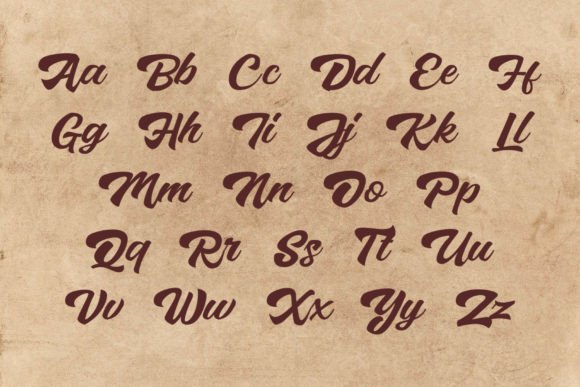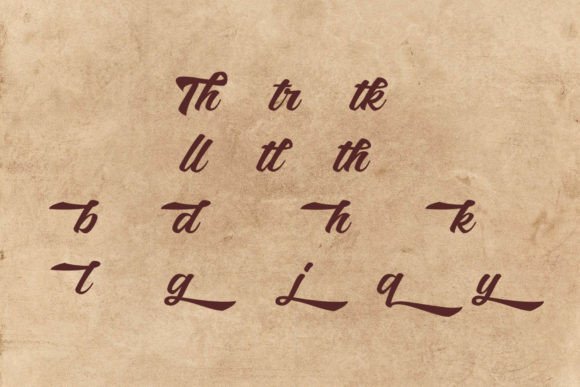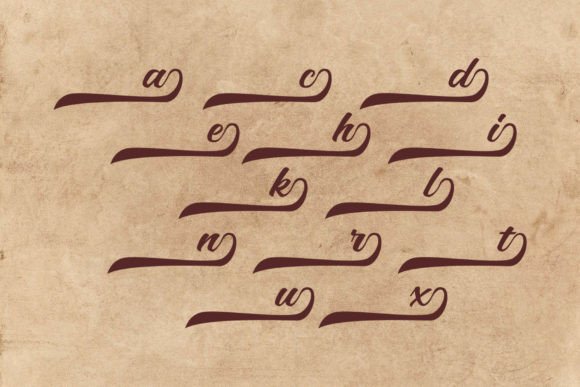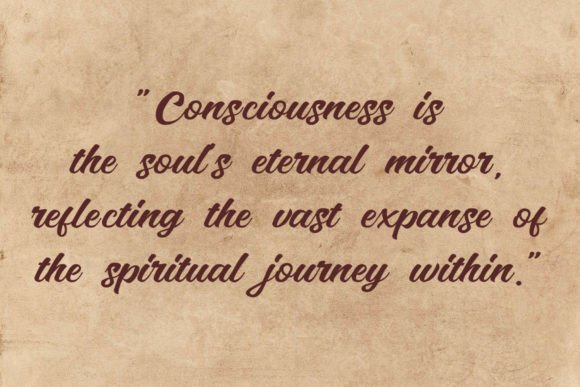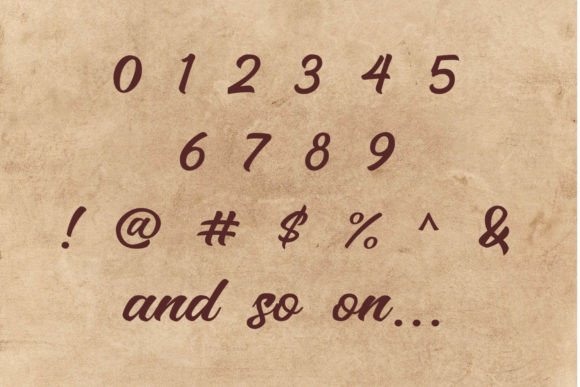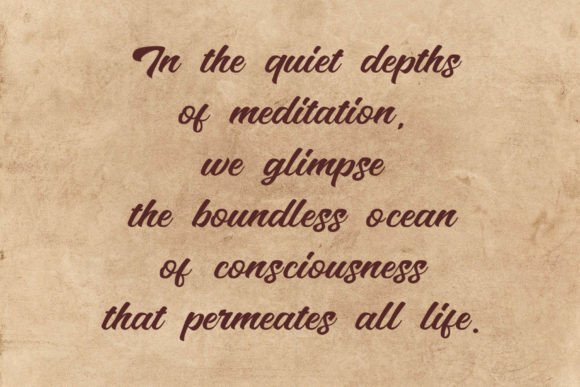
Discover the Exquisite Brushtina Brush Font – A Perfect Blend of Elegance and Creativity!
Are you tired of using the same old fonts in your design projects? Look no further! Introducing Brushtina Brush Font, a stunning typographic masterpiece that will elevate your designs to new heights. This handcrafted font is a perfect blend of elegance and artistic flair, making it ideal for a wide range of creative endeavors.
What Makes Brushtina Brush Font So Special?
Crafted with meticulous attention to detail, Brushtina Brush Font brings a touch of sophistication and uniqueness to your designs. The flowing brush strokes of this font exude an organic charm, while its flawless legibility ensures readability in various sizes. Whether you’re working on branding, logo design, invitations, or social media graphics, this versatile font will effortlessly capture your audience’s attention.
The Perfect Balance of Elegance and Creativity
Brushtina Brush Font strikes the perfect balance between elegance and artistic flair. Its elegant strokes and curves make it perfect for designs that require a touch of sophistication, while its creative and artistic vibe makes it ideal for projects that require a more playful approach. This font is perfect for designers, artists, and creatives who want to add a personal touch to their work.
The exceptional versatility of Brushtina Brush Font extends to both print and digital media, making it a must-have asset for designers, artists, and creatives alike. Use it to create stunning:
• Logos and branding materials
• Invitations and greeting cards
• Print materials, such as brochures and flyers
• Digital art and illustrations
Unlock Your Artistic Potential
With Brushtina Brush Font, you can unlock the artistic potential of your projects and take your designs to the next level. This font is perfect for:
• Designers looking to add a touch of elegance and sophistication to their work
• Artists and creatives who want to add a personal touch to their projects
• Small business owners who want to create a unique brand identity
Key Features of Brushtina Brush Font
• Handcrafted with meticulous attention to detail
• Flowing brush strokes with an organic charm
• Flawless legibility in various sizes
• Versatile and suitable for both print and digital media
• Perfect balance of elegance and artistic flair
Font Name Brushtina Font
Author anomali.bisu
In conclusion, Brushtina Brush Font is a must-have asset for designers, artists, and creatives who want to add a touch of elegance and sophistication to their work. Its versatility, flawless legibility, and organic charm make it perfect for a wide range of creative endeavors. Unlock the artistic potential of your projects with Brushtina Brush Font and experience the perfect blend of elegance and creativity.